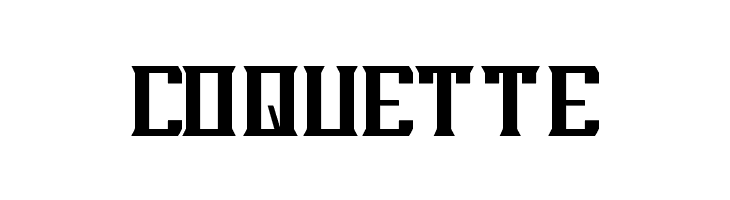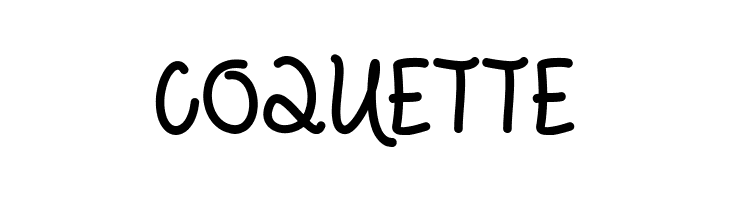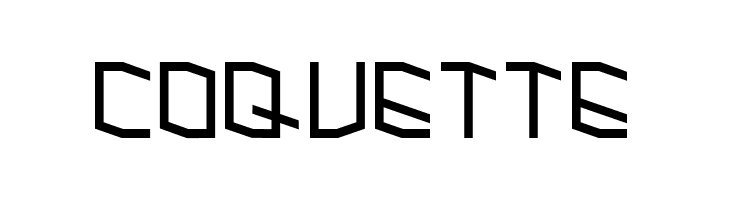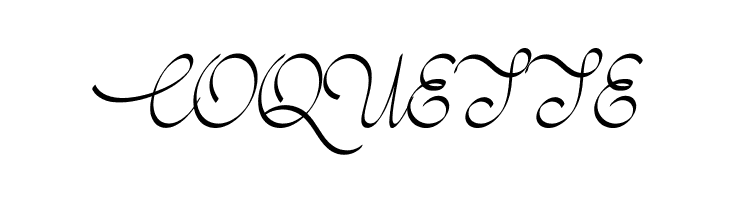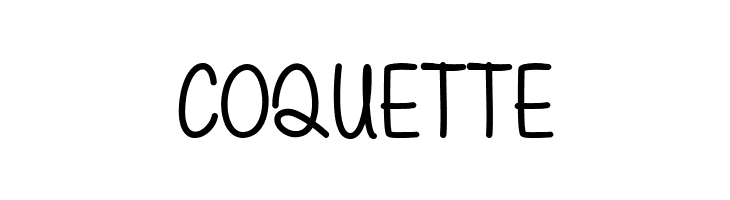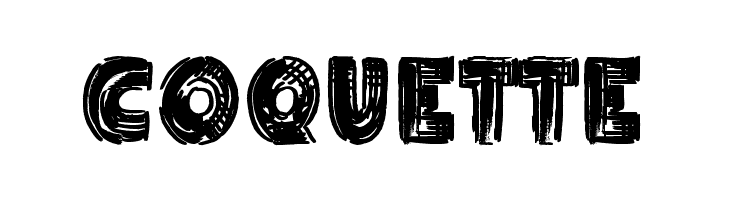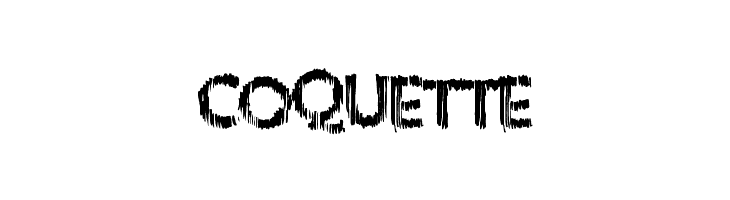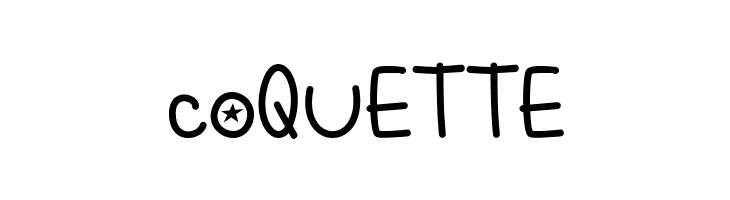
A dynamic, scribbled script font with a playful and energetic style.
A playful, handwritten font with quirky, heart-themed elements.
A playful, handwritten font with a whimsical and informal style.
A playful, handwritten font with a friendly and casual style.
An elegant script font with flowing, cursive style and delicate flourishes.
A cursive script font with elegant, flowing strokes and a handwritten appearance.
An elegant script font with flowing, cursive strokes and sophisticated design.
A bold, textured font with a vintage collegiate style, ideal for impactful designs.
A bold, decorative font with a playful, textured design.
A bold, textured font with a distressed, hand-drawn appearance.
A bold, geometric font with a futuristic and industrial aesthetic.
A bold, hand-drawn font with intricate line patterns and a sketch-like appearance.
A bold, blocky font with a strong, assertive presence.
A bold, 3D geometric font with a strong, impactful presence.
A bold, 3D italic font with a dynamic and impactful style.
A bold, condensed font with a strong, geometric style.
A bold, condensed, and italicized font with a dynamic and powerful style.
A bold, blocky font with sharp angles and an expanded width, perfect for impactful designs.
A bold, angular, and italic font with a strong, dynamic presence.
A bold, italic, and geometric font with a powerful and dynamic style.
A bold, left-slanted font with a strong, geometric style.
A bold, vintage-style font with thick outlines and strong contrast.
Bold, italicized font with a dynamic, three-dimensional style.
A bold, angular font with a dynamic, slanted style.
A bold, angular font with a strong, impactful presence.
A bold, angular font with a powerful and dynamic style.